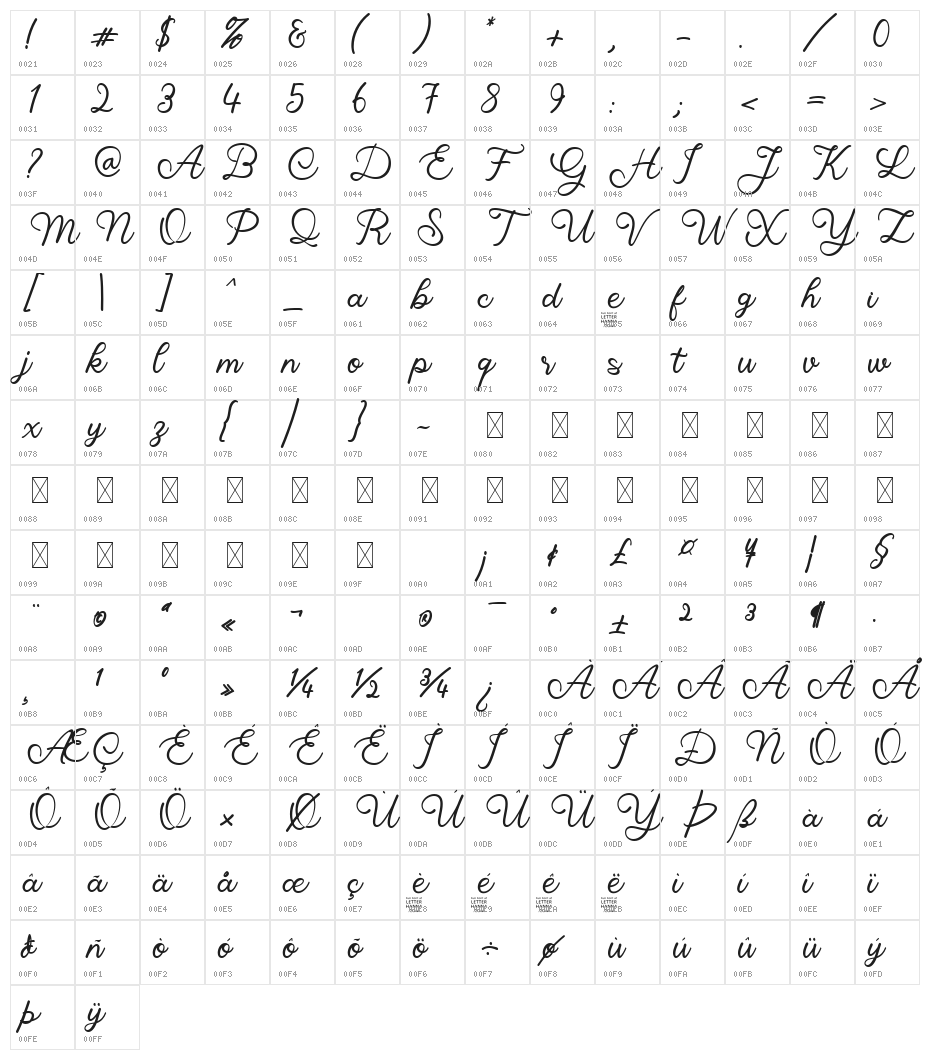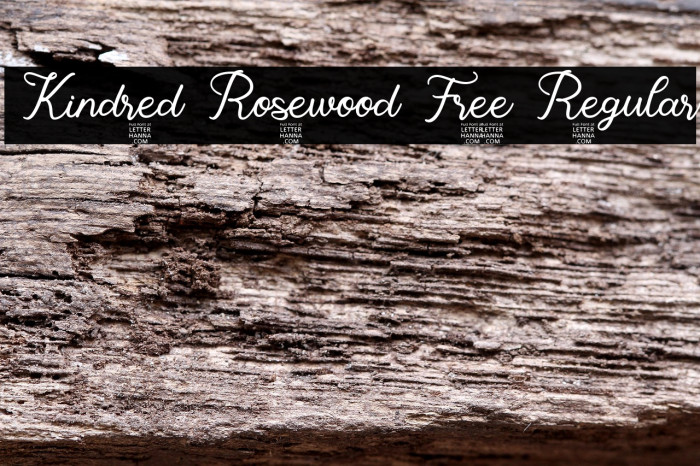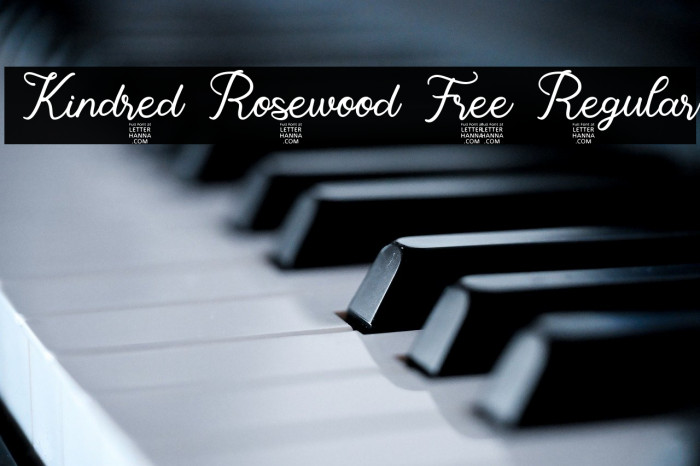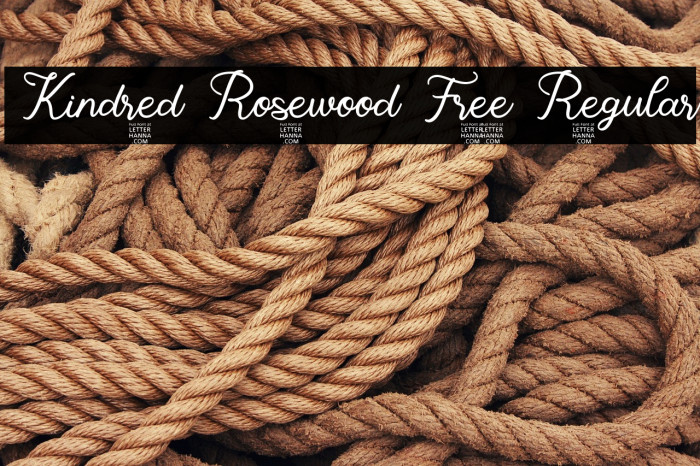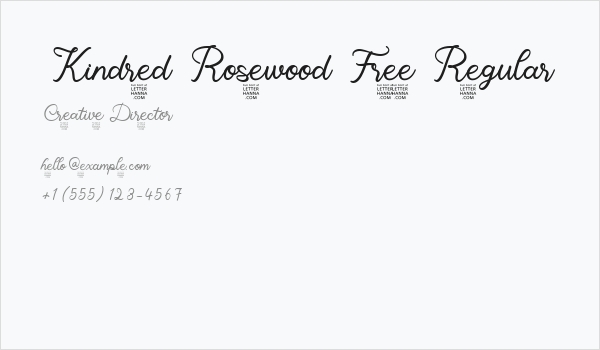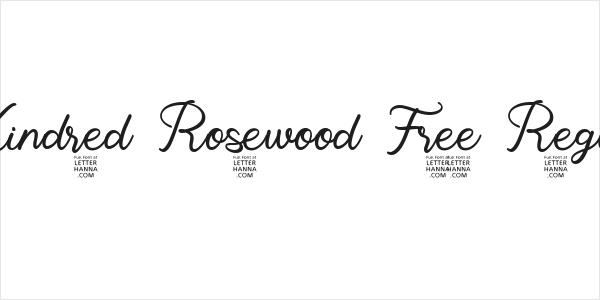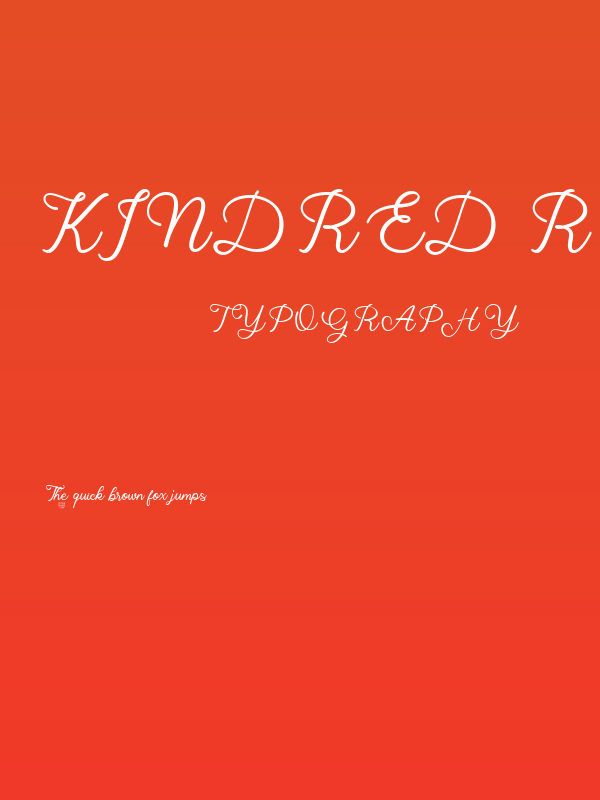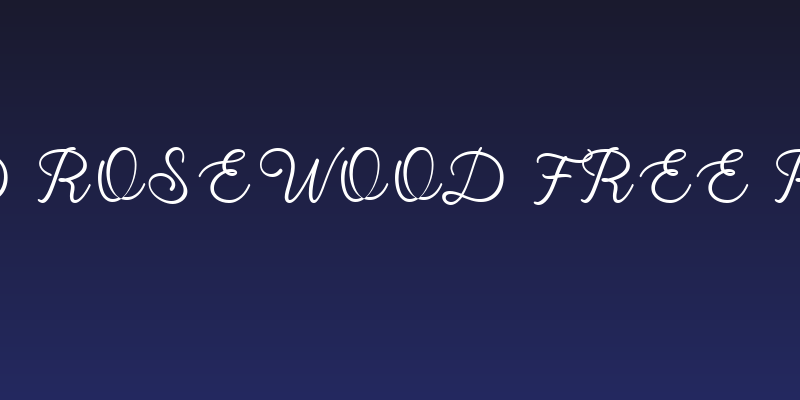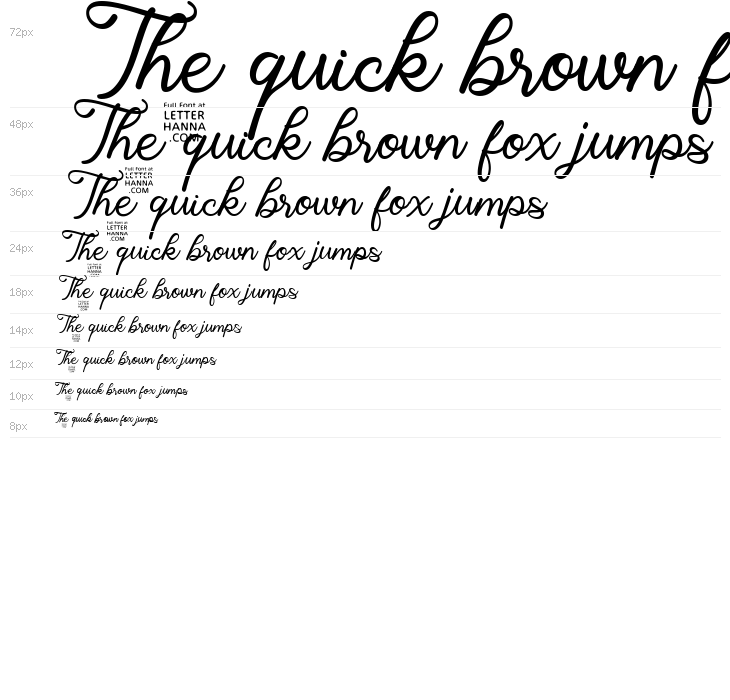
Kindred Rosewood Free Regular Font
Kindred Rosewood Free Regular Description
This font features a decorative and ornate style, characterized by intricate details and flourishes. The uppercase letters are bold and commanding, with a vintage flair that evokes a sense of elegance and sophistication. The lowercase letters maintain the decorative theme, offering a cohesive look throughout the typeface. Numbers and special characters are designed to complement the overall aesthetic, making this font suitable for creative and artistic projects. The unique design elements make it stand out, perfect for capturing attention in headlines or logos.
| Proposed Projects | This font is perfect for wedding invitations, vintage-themed posters, branding for luxury products, and artistic book covers. |